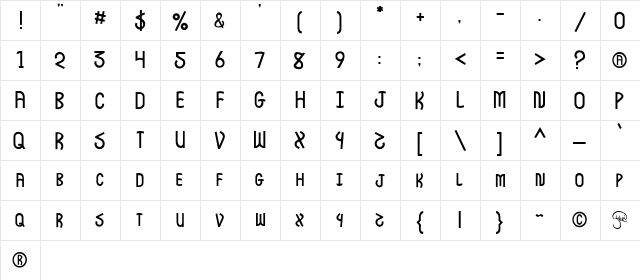
JI Deschutes Font Preview
JI Deschutes JI Deschutes
JI Deschutes Font Details
| Style | JI Deschutes |
| Designer | Jeri Ingalls |
Design Context for JI Deschutes Typeface
JI Deschutes offers clean, dependable letterforms without strong stylistic allegiance, making it a practical choice for designers who need flexibility.